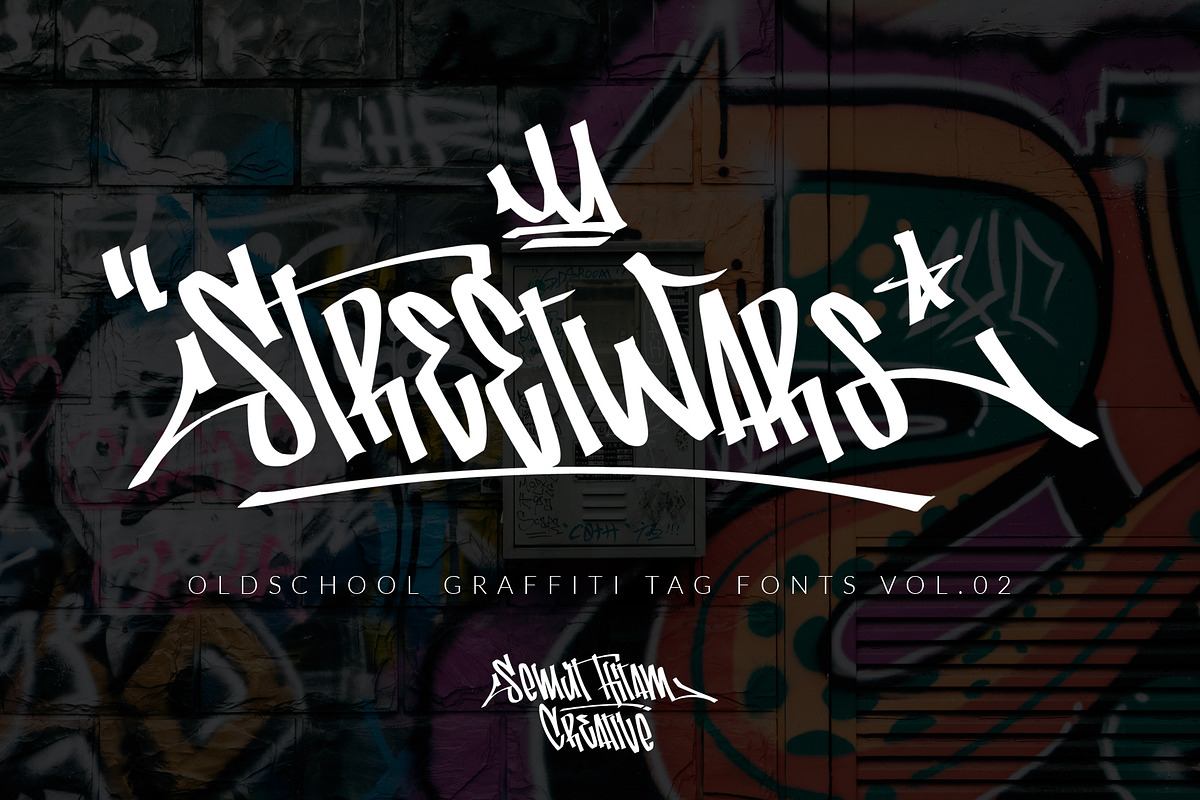
Street Wars – Graffiti Fonts Free Download is a bold, explosive typeface that channels the raw intensity of street art and urban expression. With its wild letterforms, aggressive strokes, and rebellious energy, this graffiti font is perfect for music covers, streetwear branding, skate culture, and edgy digital artwork.
It captures the essence of underground vibes—loud, fearless, and unapologetically creative. Whether you're tagging a poster, building a youth-focused brand, or adding attitude to social media visuals, Street Wars delivers high-impact style and street-smart swagger.
Designers love Street Wars for its dynamic presence and authentic graffiti look. Make your mark with urban flair—download Street Wars – Graffiti Fonts Free Download and let your next project speak the language of the streets.